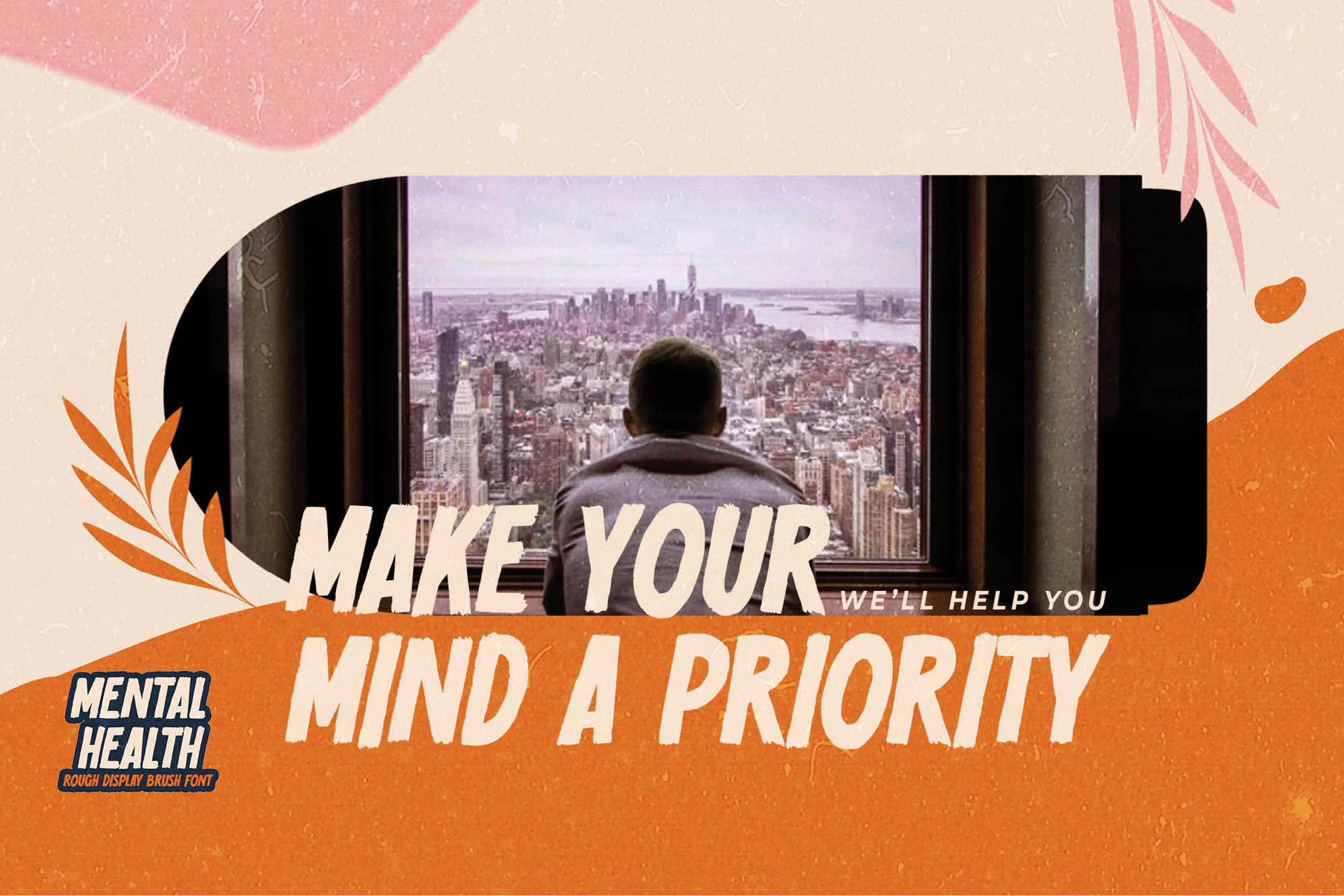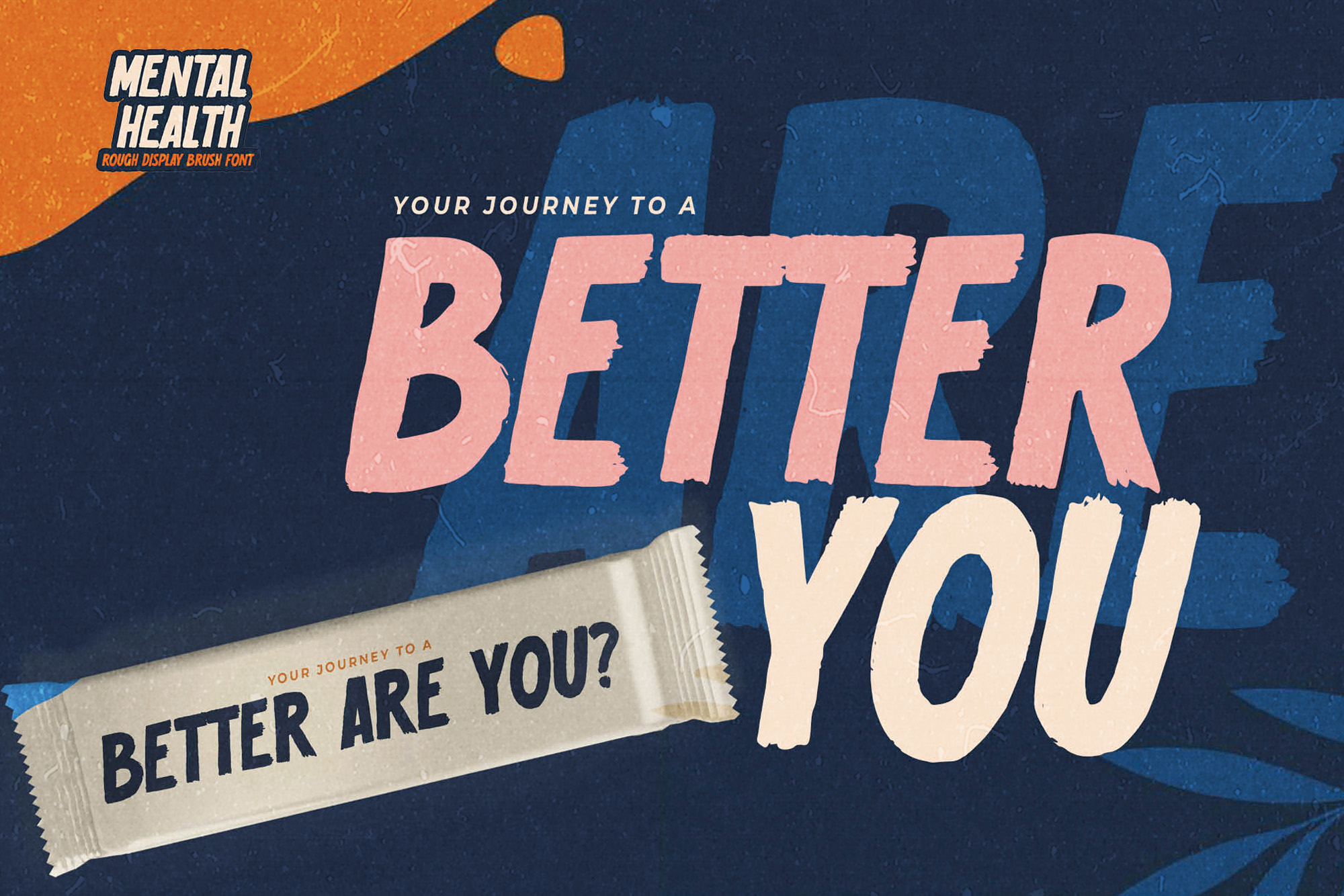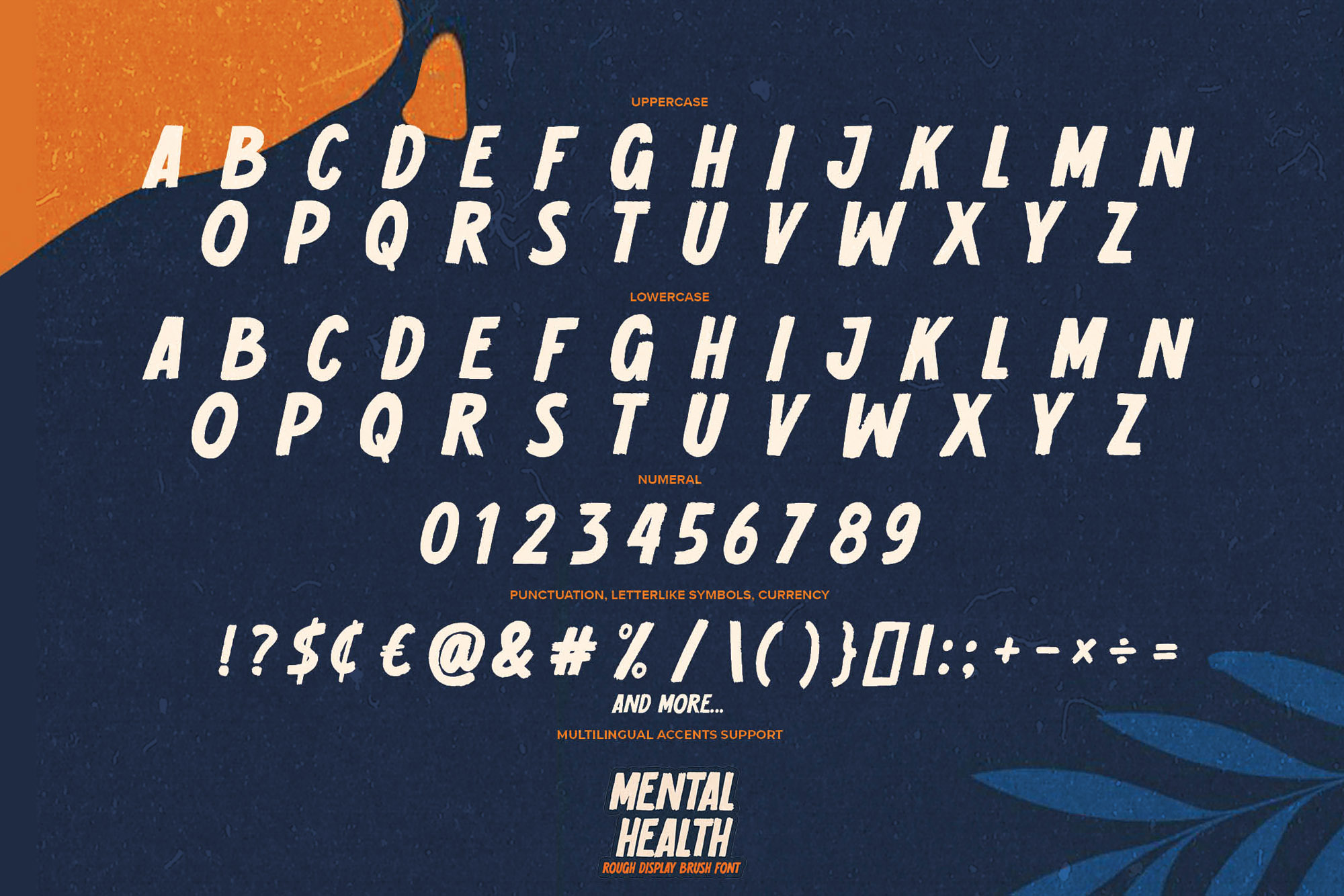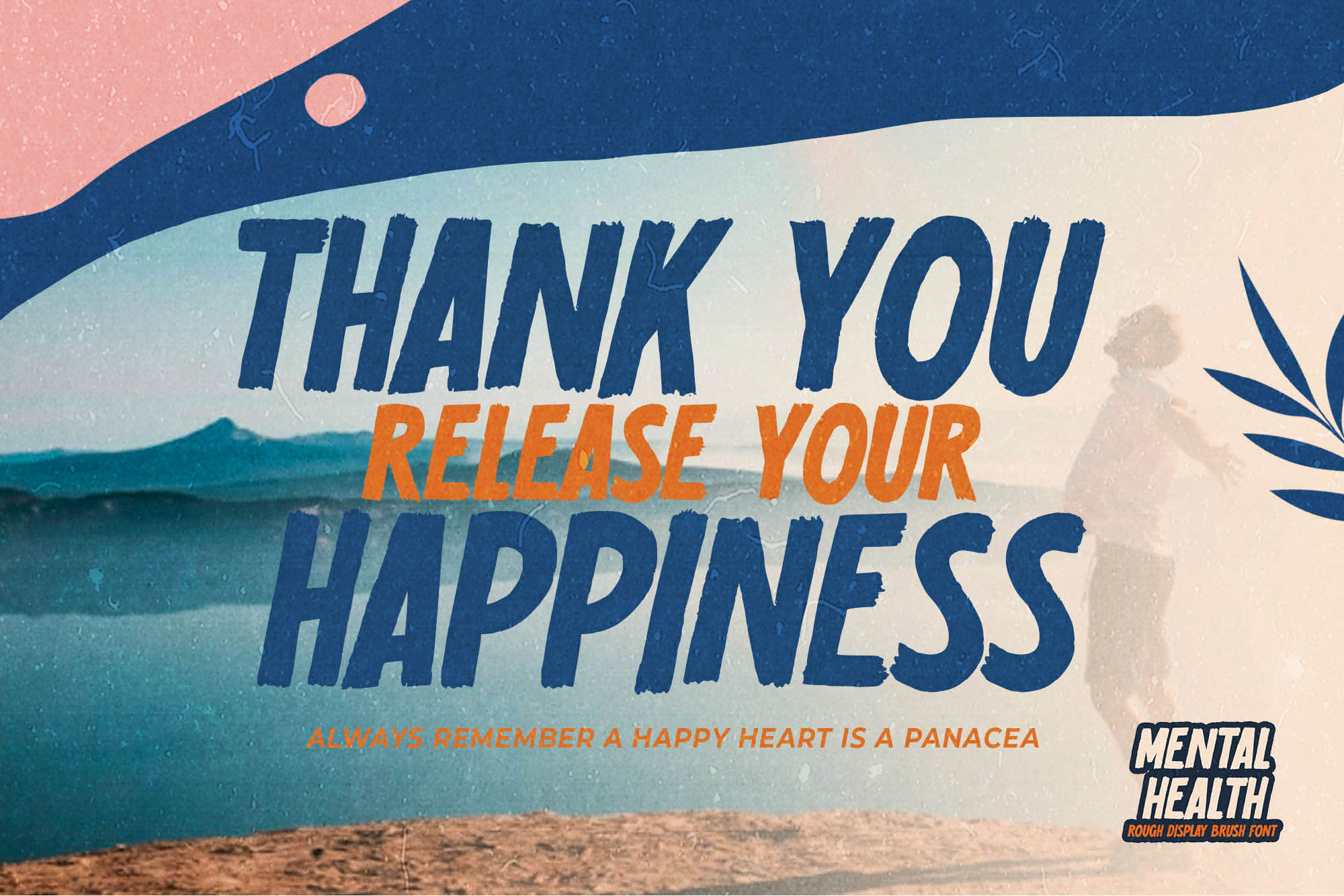
MENTAL HEALTH – Rough Display Brush Font, modern style and dramatic movement that is written casually and quickly.
The best for labels, poster, project designs look modern, strong and cool . It’s perfect for labels, quotes, posters, DIY projects, branding, packaging, greeting cards, websites, photography overlays, signs, scrapbooking, tags and so much more! That is why MENTAL HEALTH has a textured, and authentic characteristic more natural look. You can activate Alternates glyphs OpenType panel.